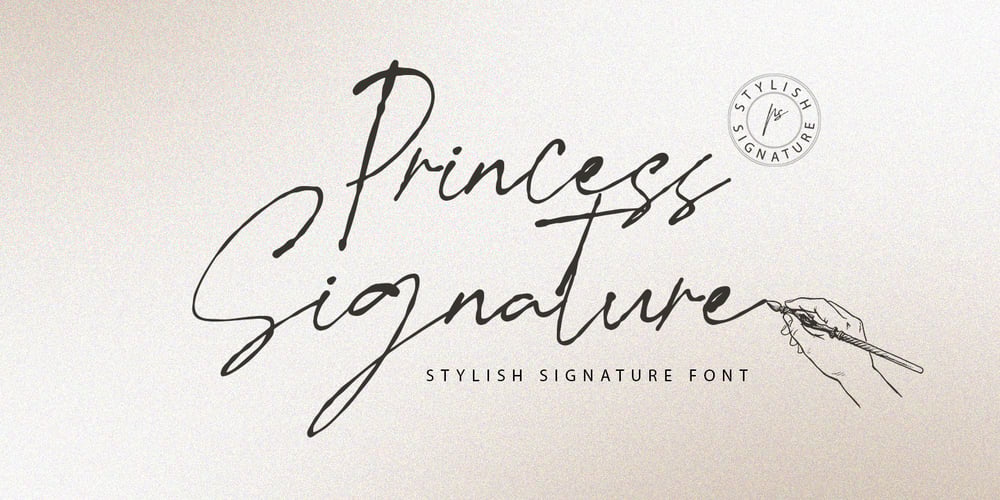
Princess Signature Font Family was designed by Muhammad Fajar and published by Lucky Type. Princess Signature contains 1 styles and family package options. Princess signature is the newest signature font with a truly amazing combination of old style and modern style. Perfectly designed from beautiful natural handwriting for any design project you can think of. Perfect for branding, business cards, quotes, posters, stickers, blogs, logos, weddings, birth announcements, photo overlays, printed items, bags, t-shirts and more. Thank you so much for looking and let me know if you have any questions.